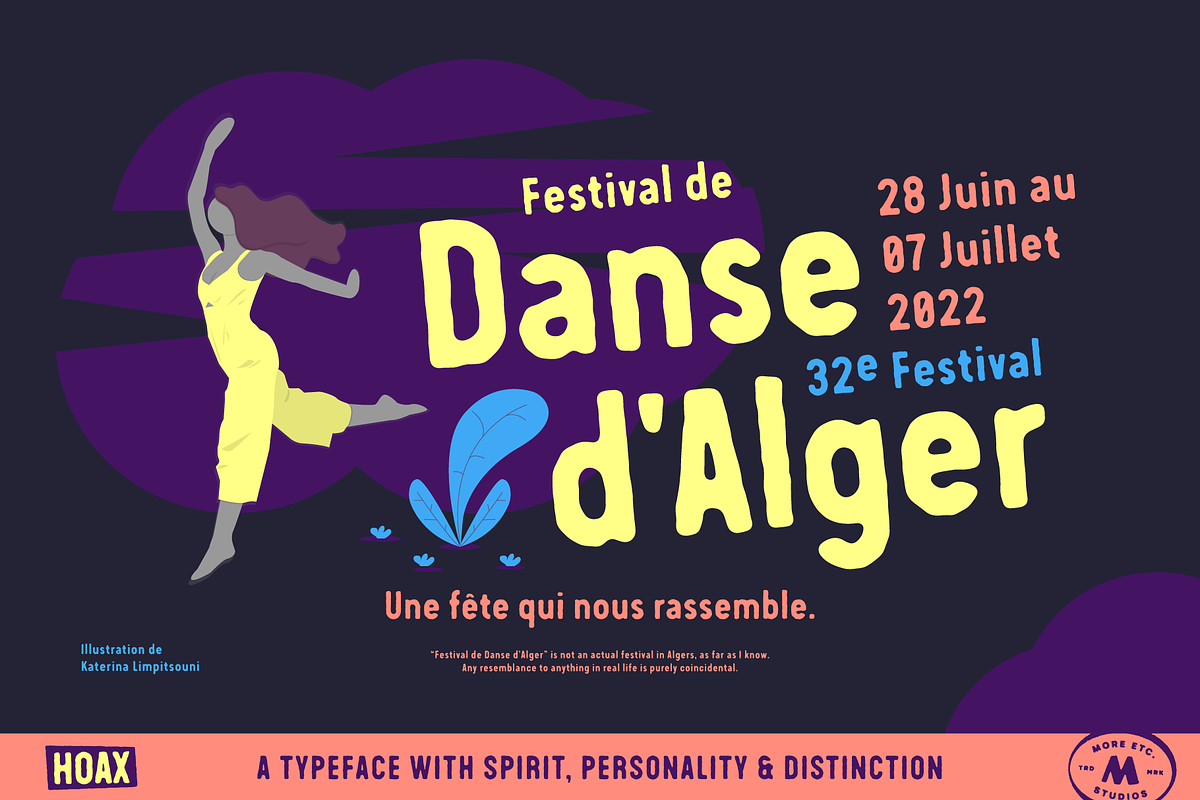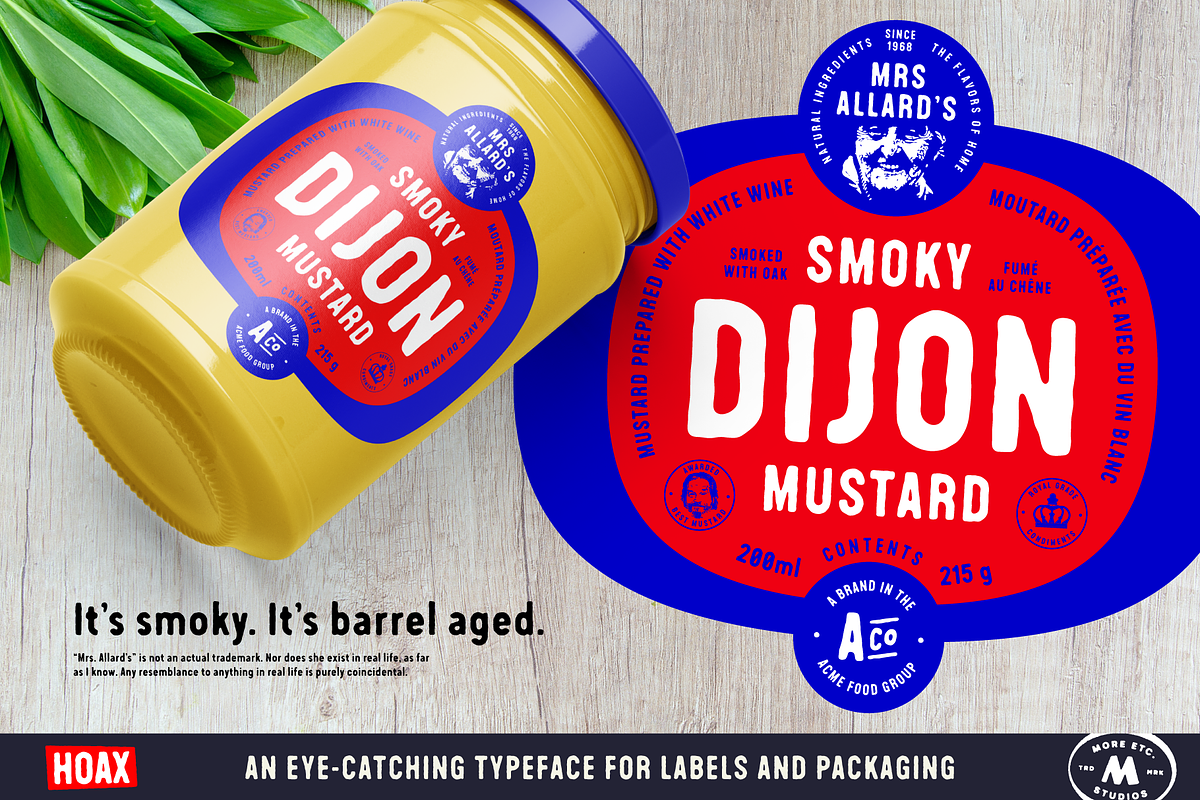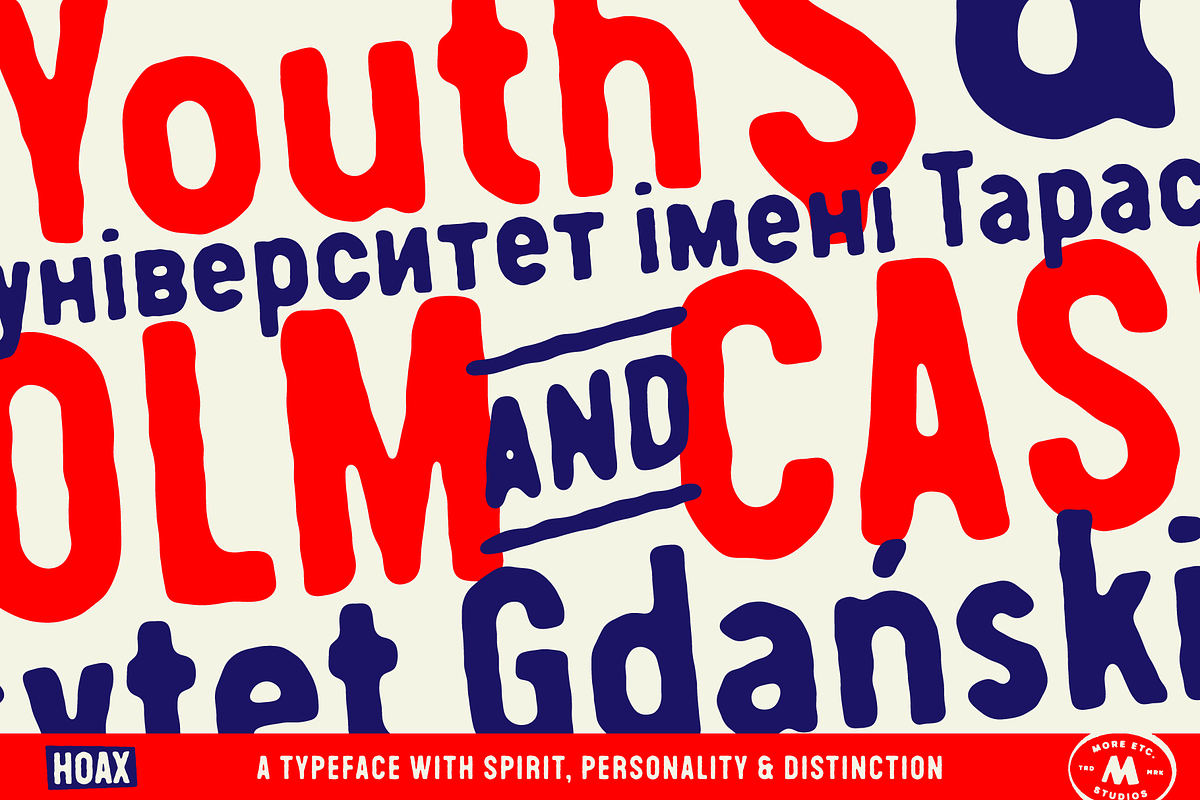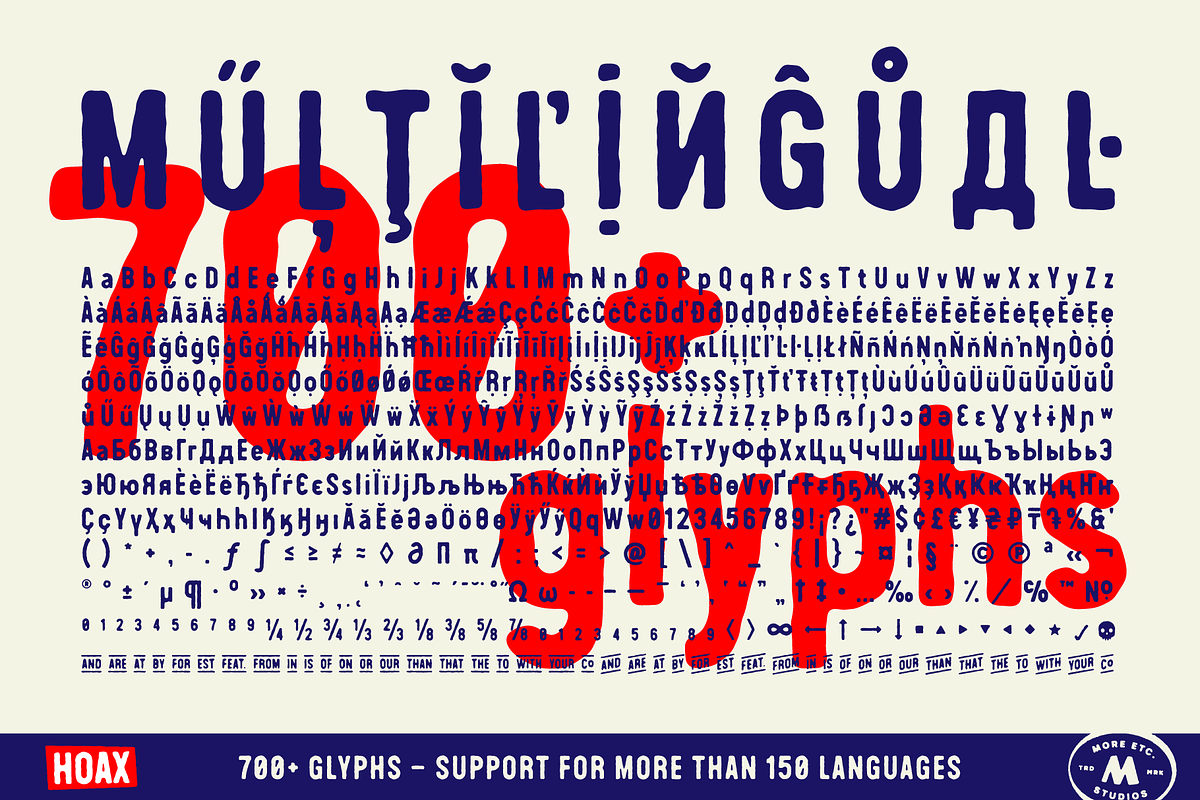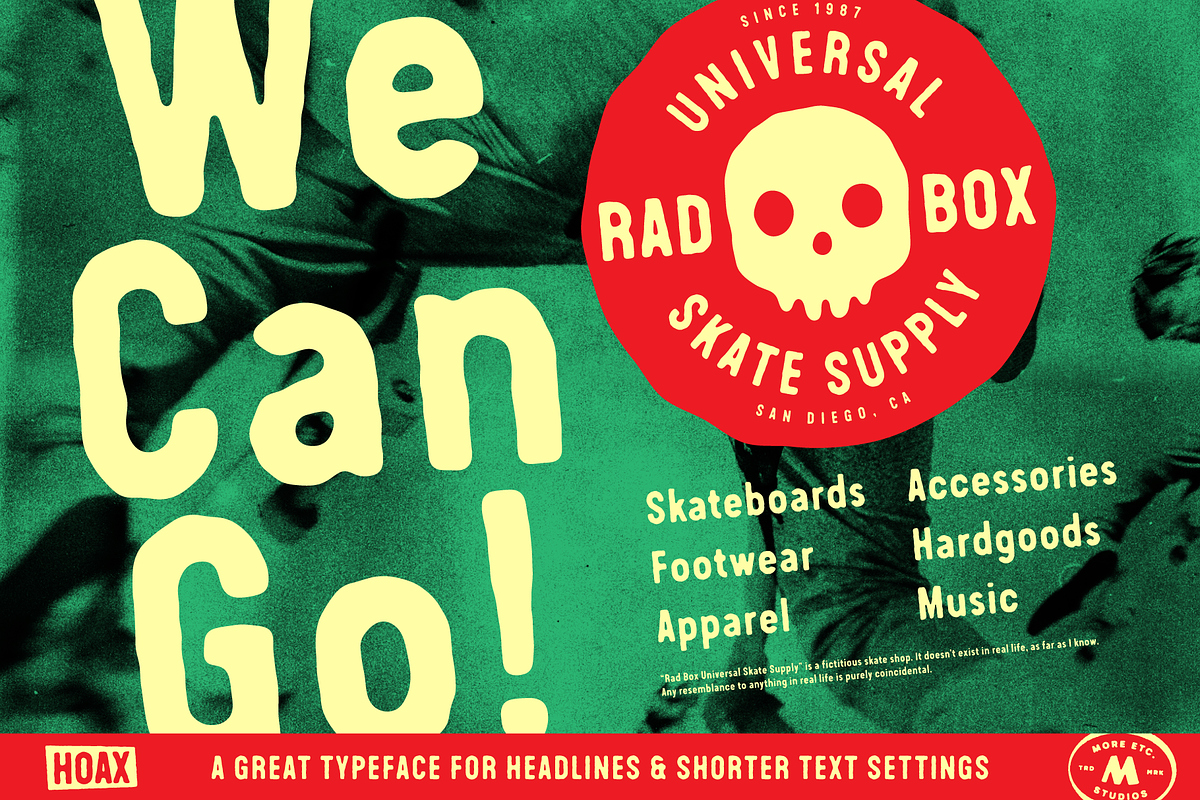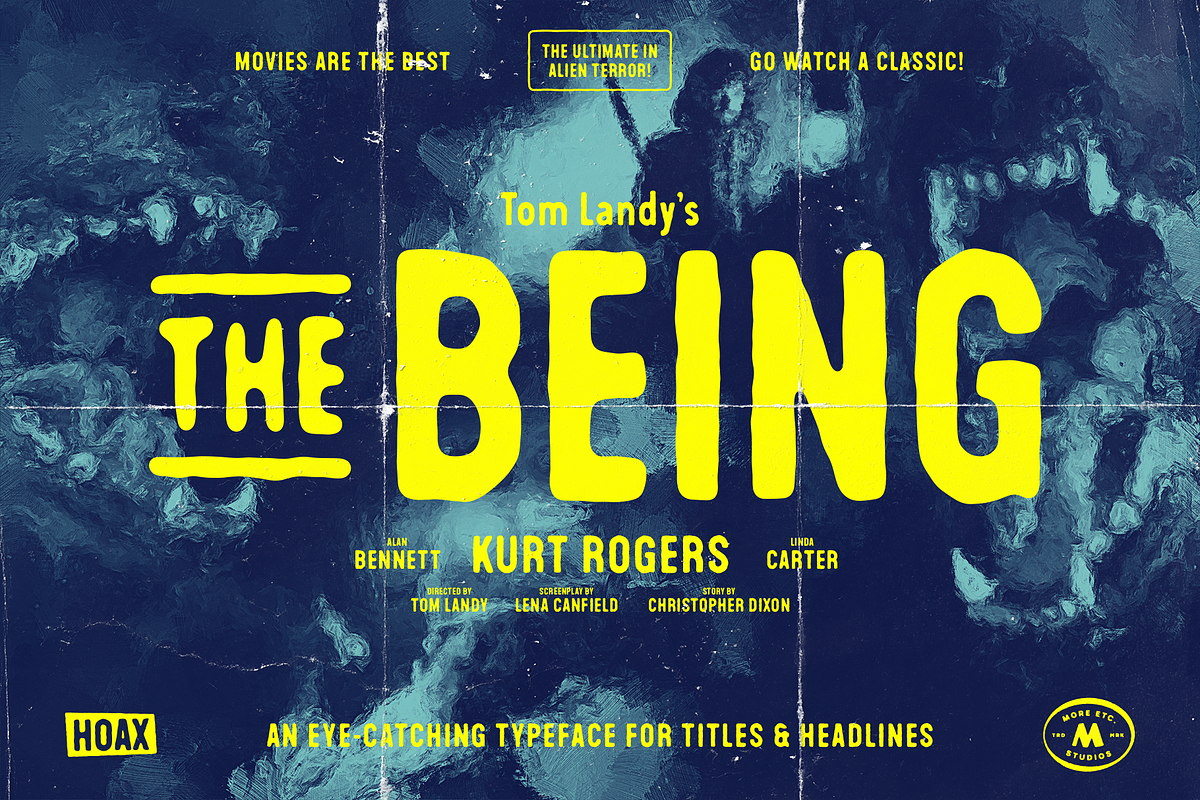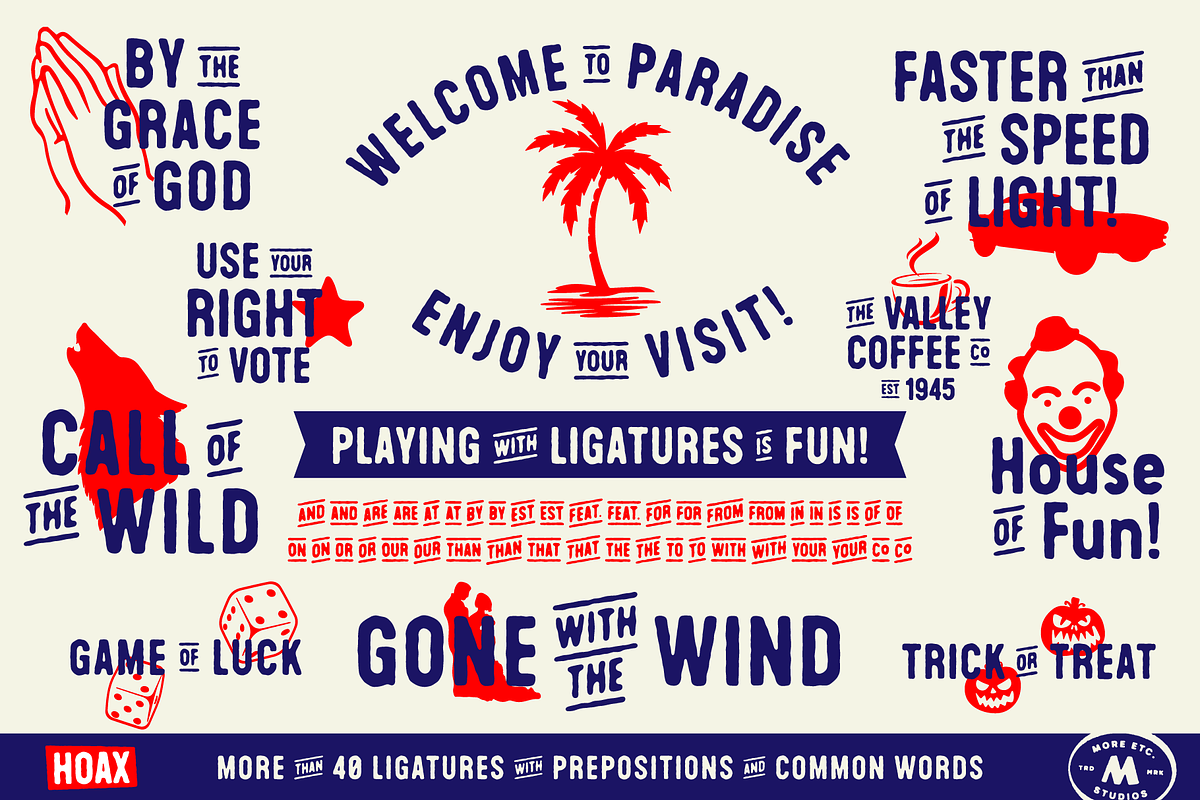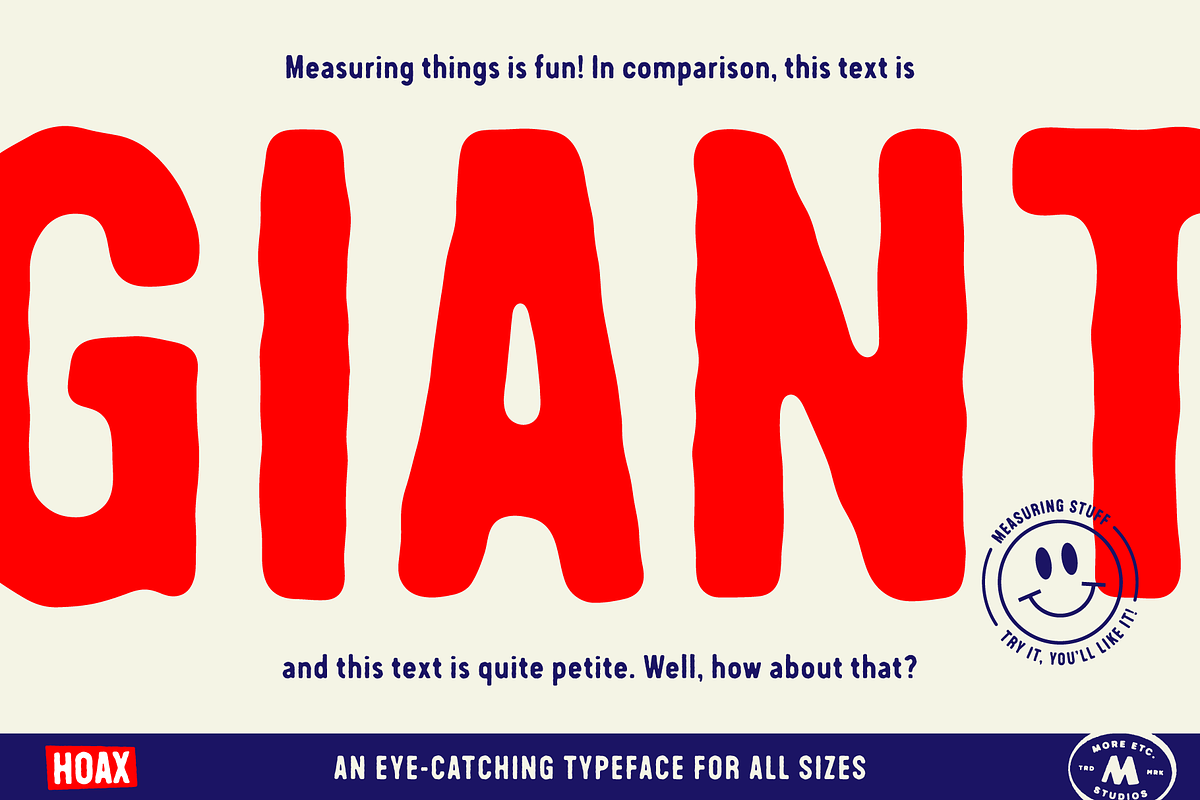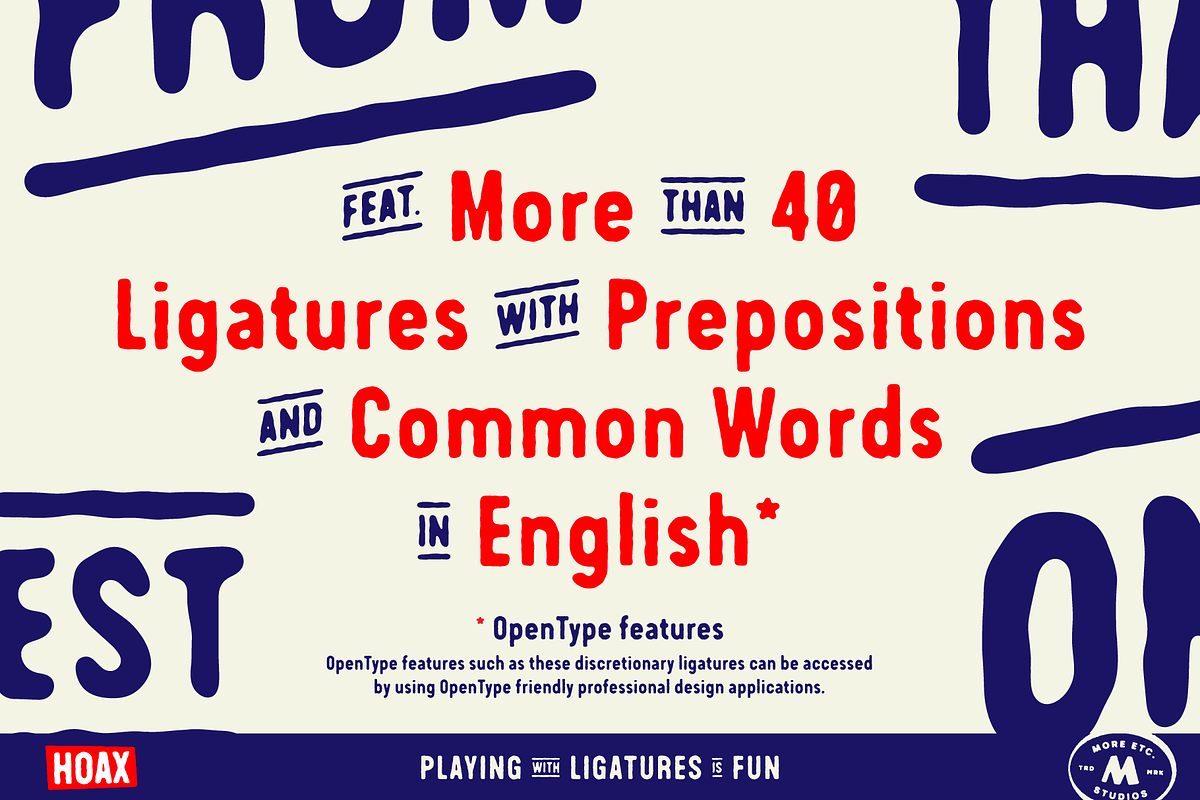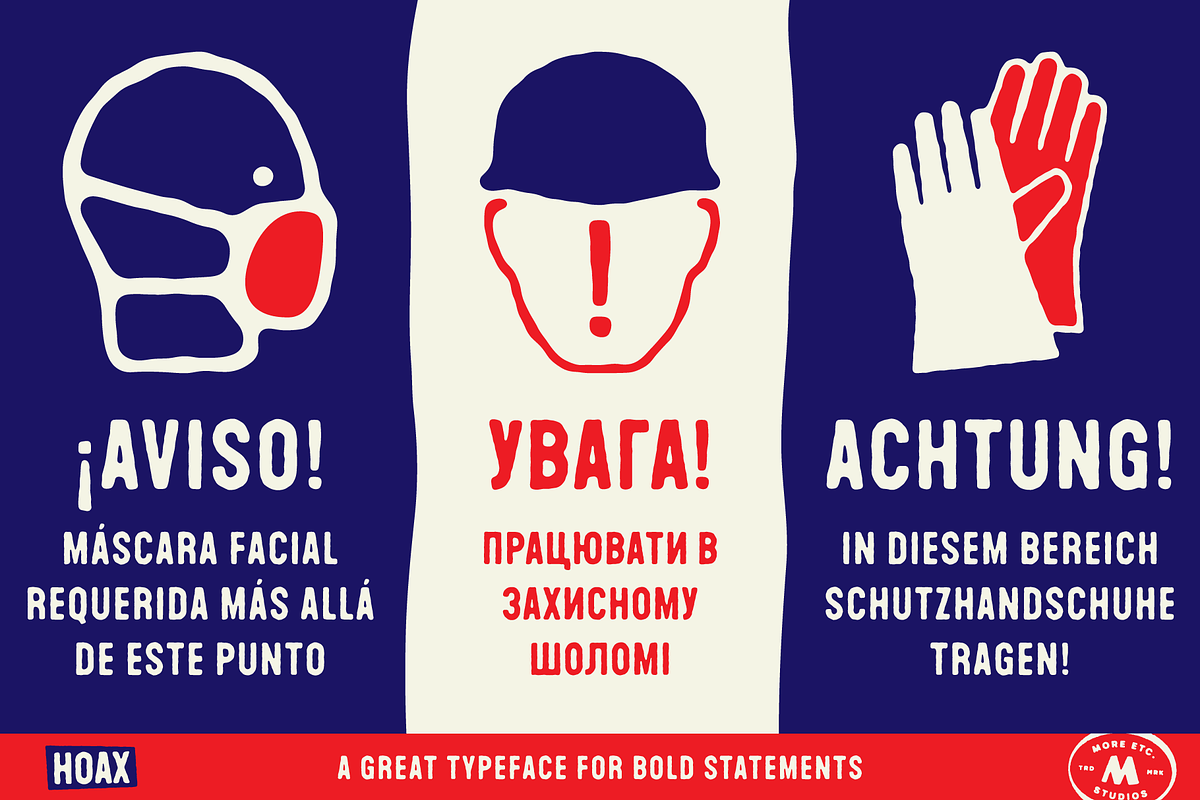
Hoax – A pre-worn typeface
Introducing Hoax – a pre-worn sans serif with spirit, personality and distinction.
This bold and semi-condensed sans serif is inspired by old copy machines and vintage prints. It is lively and eye-catching, ideal for where and when you want to make a lasting impression.
Hoax is a celebration of character, a tribute to curiosity. Use this typeface and let everyone know that you mean business.
FONT SUMMARY:
- Bold and eye-catching typeface with tons of personality
- Over 700 glyphs
- Support for more than 150 languages, including Cyrillic script.
- Over 40 discretionary ligatures with prepositions and common words in English
OPENTYPE FEATURES: This font includes over 40 discretionary ligatures with prepositions and common words in English. These OpenType features can be accessed using OpenType friendly applications that allow the use of discretionary ligatures and stylistic sets.
MULTILINGUAL SUPPORT: With over 700 glyphs, it has support for more than 150 languages, including Cyrillic script.
List of discretionary ligatures: AND, ARE, AT, BY, FOR, EST, FEAT., FROM, IN, IS, OF, ON, OR, OUR, THAN, THAT, THE, TO, WITH, YOUR, CO. Each word is available in both upright and slanted versions. How to use: Activate the discretionary ligatures as you normally do in your OpenType friendly application. When activated, the words are in upright versions. To access the slanted versions, activate the first stylistic set (“Slanted Ligatures”).